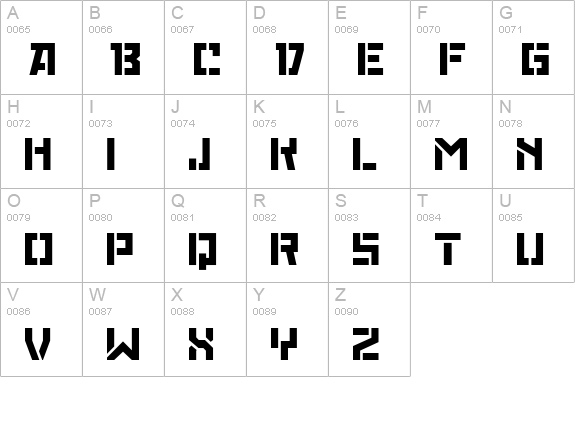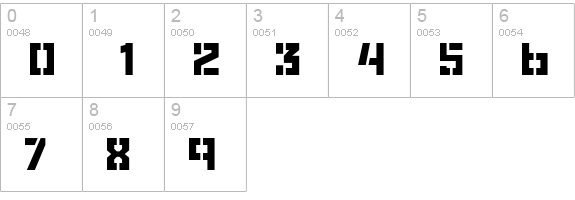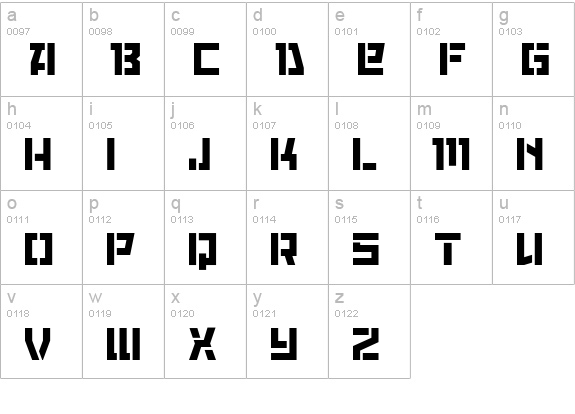
Introducing Red October Stencil, a bold and striking font that commands attention with its unique stencil design. This font captures the essence of industrial strength and modernity, making it perfect for a wide range of projects. Red October Stencil boasts a strong and confident appearance, with its sharp edges and clean lines. It exudes a sense of power and authority, making it an ideal choice for branding, signage, and headline designs that require a bold statement. The precision of the stencil design gives Red October Stencil a contemporary and urban feel, making it a versatile choice for various creative endeavors. Whether you're creating posters, flyers, or digital artwork, this font's distinct style adds a touch of sophistication and professionalism to your projects. What makes Red October Stencil even more appealing is the fact that it is available for free download at FontsMarket.com. This means that you can enjoy the benefits of this exceptional font without any cost, making it an excellent choice for budget-conscious creatives and designers. With Red October Stencil, you can take your designs to new heights, effortlessly capturing attention and leaving a lasting impression. So why wait? Download this one-of-a-kind font today, and let your creativity soar to new heights with Red October Stencil.